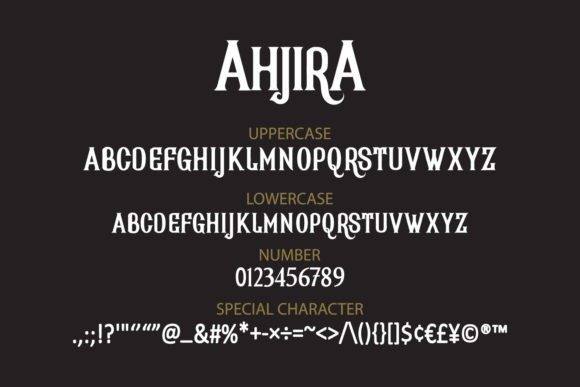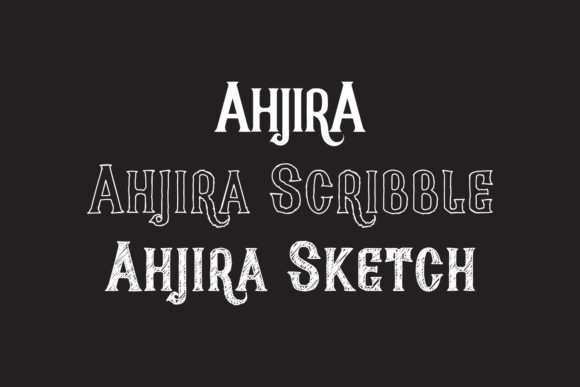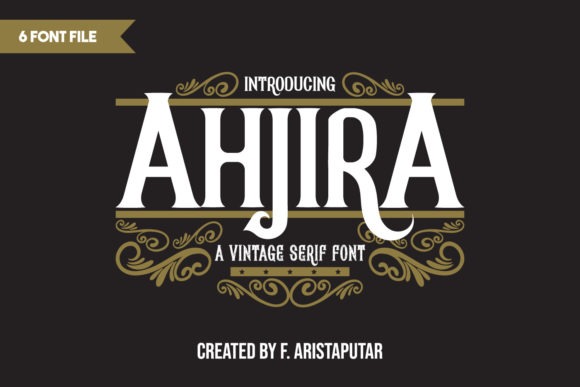
Ahjira Font
Ahjira Serif Font
If you’re looking for a classic font to attract your audiences or customers then we’ve got the font for you! Ahjira is an elegant classic serif font created by Faristaputra with Fancy Curves, More Alternative Characters, and Multilingual Support. Suitable for branding, product packaging, invitations, quotes, t-shirts, labels, posters, logos that you want to develop.